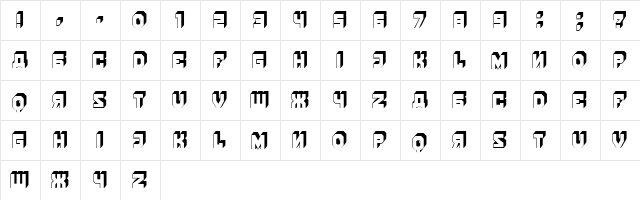
Strengthen Regular
Design Context for Strengthen Typeface
Strengthen is a composed and adaptable typeface that performs quietly and consistently across a wide range of design contexts.